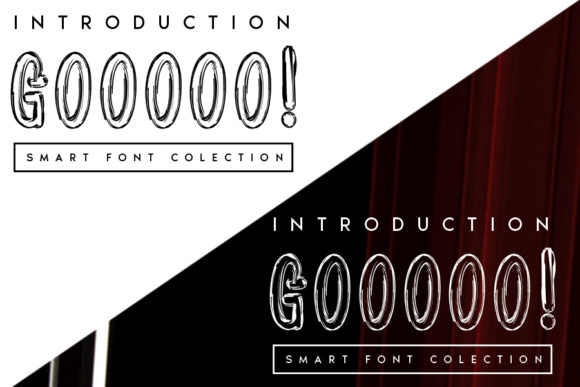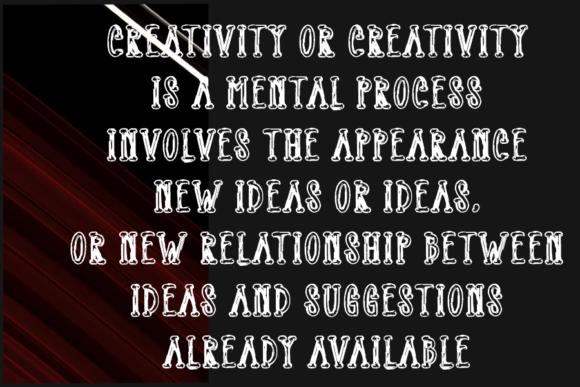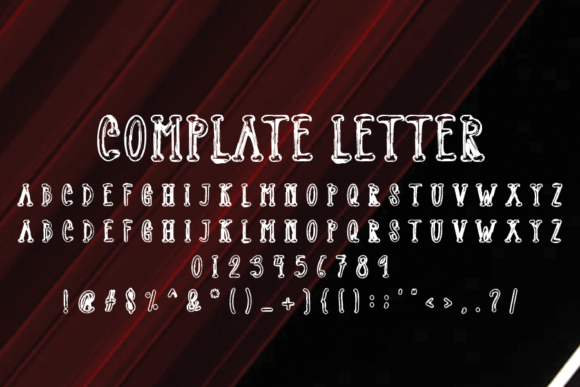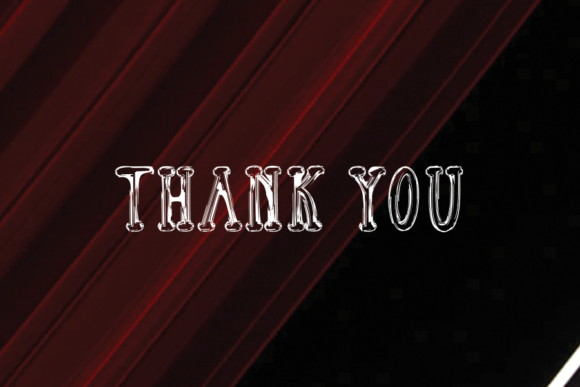
Introduction to Gooooo Font Font
Fonts play a crucial role in design, and the Gooooo Font font is a typeface that brings both character and versatility to any project. Whether you’re working on a branding project, a website, or a print design, the Gooooo Font font offers a unique style that can elevate your work.
Gooooo is a cute and quirky display font.
Add this beautiful font to each of your creative ideas and notice how it makes them stand out .
Key Features of Gooooo Font Font
Why Choose Gooooo Font Font?
The Gooooo Font font is more than just a typeface – it’s a design tool that helps you communicate your message with style and clarity. Its unique character set and versatile design make it suitable for a wide range of applications, from elegant invitations to bold headlines.
With its carefully crafted letterforms and balanced proportions, the Gooooo Font font ensures readability and visual appeal across all mediums.
What makes Gooooo Font font special?
The Gooooo Font font stands out with its unique design, exceptional readability, and versatility across various design applications.